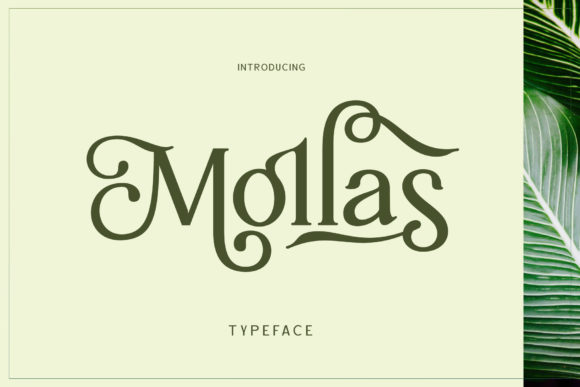
Dive into the realm of vintage charm with Mollas Font, a display font that will ignite your creativity and transport you to a bygone era. Let this playful and nostalgic font weave its magic, adding a touch of retro elegance to your designs. With its meticulously crafted glyphs and swashes, Mollas Font invites you to explore a world of typographic possibilities.
Unleash your imagination and let Mollas Font guide you through a journey of artistic expression. Whether you're crafting logos, branding materials, website headers, or social media graphics, this font will leave an unforgettable impression. Its distinctive style adds a touch of sophistication, making your creations stand out from the crowd.
Mollas Font is more than just a font; it's a portal to a world of nostalgia and timeless beauty. Embrace the vintage aesthetic and let your imagination soar. Make a statement with your designs, capture attention, and create a lasting impact with Mollas Font. Dive in and discover the endless possibilities that await!